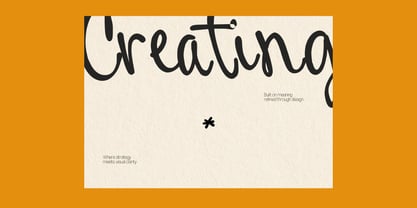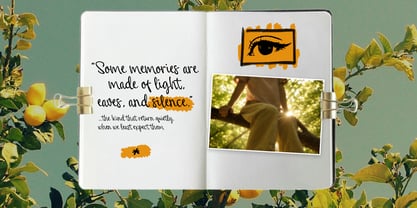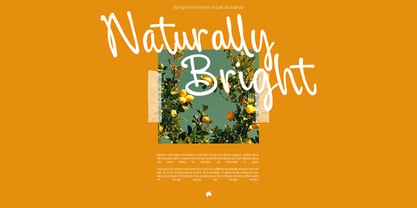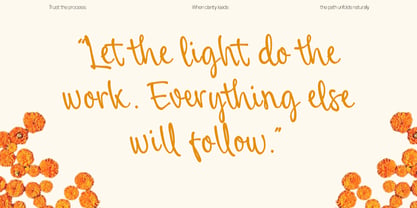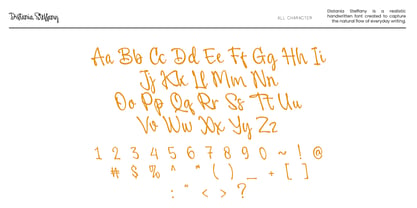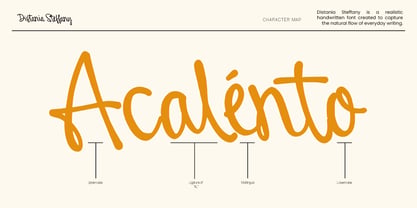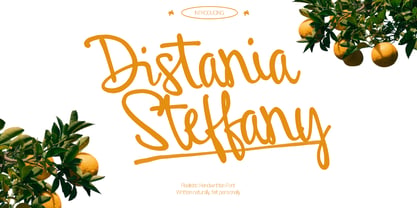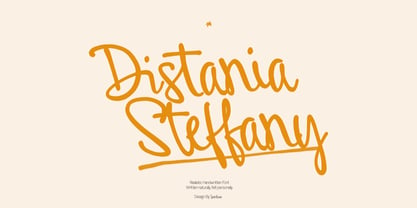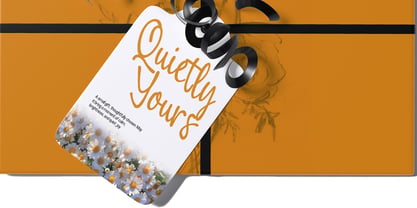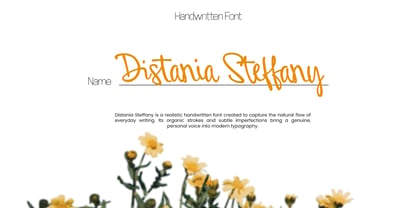
Distania Steffany
by Equalisign
The Distania Steffany Font Family was designed by Syahrul Maulana and published by Equalisign. Distania Steffany contains 1 styles. More about this family
Distania Steffany is a realistic handwritten font that beautifully captures the natural rhythm of everyday writing. Inspired by spontaneous pen strokes and personal notes, it features an organic flow with subtle imperfections, giving it a distinctly human feel. Each letter embodies warmth and authenticity, making it both expressive and effortless while maintaining clarity and visual impact. With a comprehensive set of uppercase and lowercase letters, numerals, punctuation, ligatures, and multilingual support, this font is ideal for various applications including branding, quotes, social media, packaging, invitations, and editorial design. Distania Steffany strikes a perfect balance between casual and expressive, offering a handwritten style that is intentional, refined, and easy to connect with.
Designers: Syahrul Maulana
Foundry: Equalisign